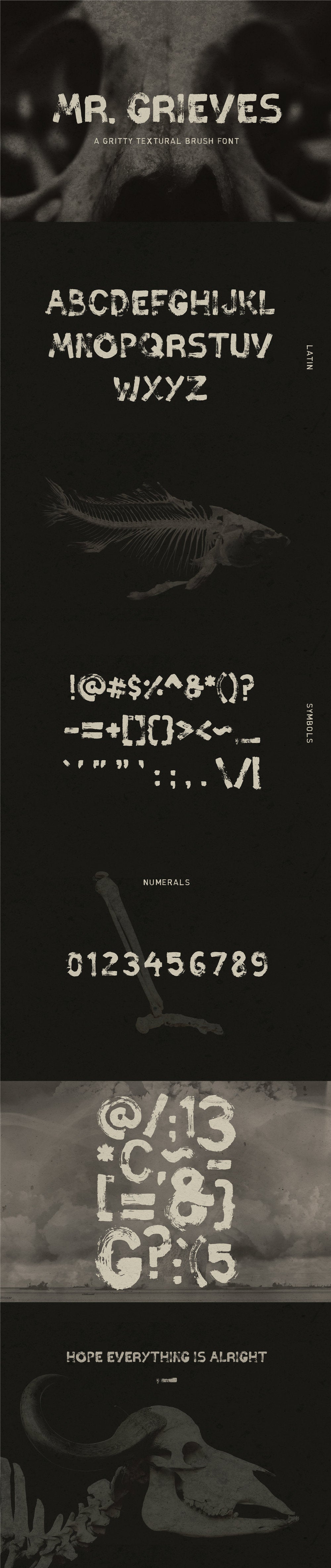
Free MR. GRIEVES - HAND DRAWN BRUSH FONT
Free mr. grieves - hand drawn brush font for graphic designers that need to present their work in a professional way. Download this free font from the original source of Pixel Surplus. Showcase your designs like a graphic design pro by adding a new touch with this cool font.